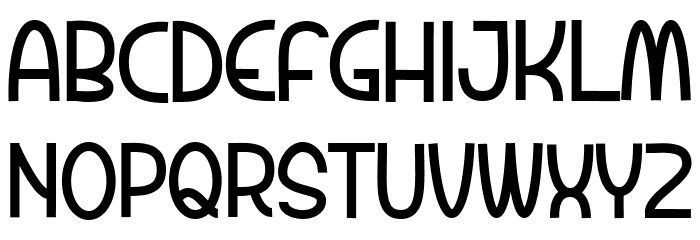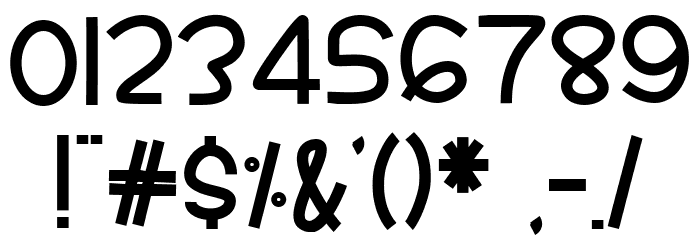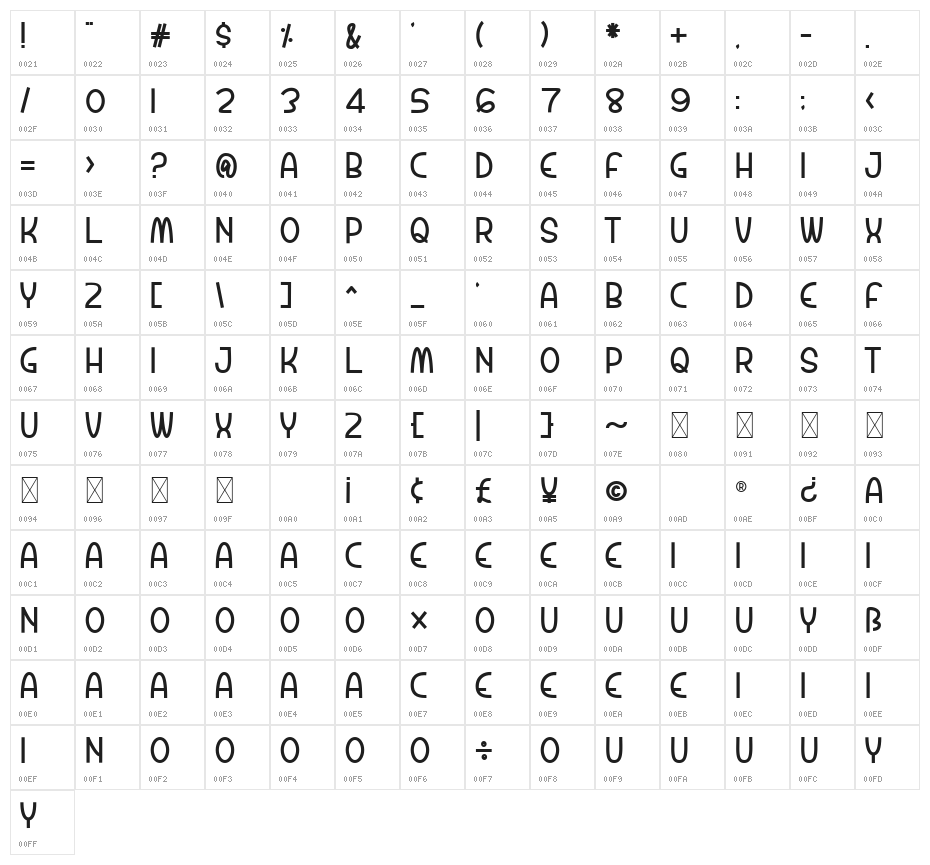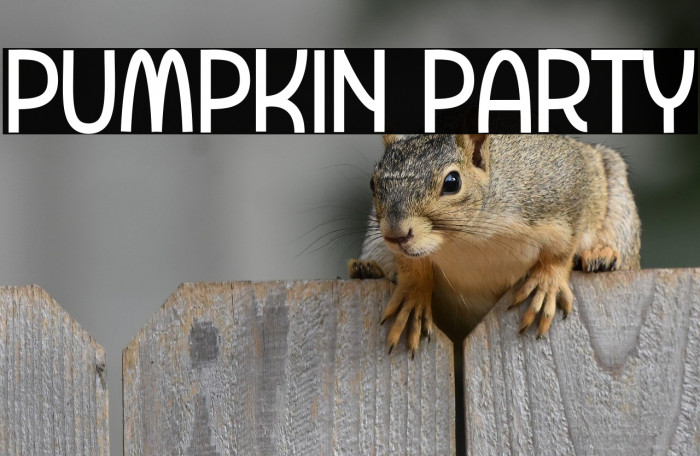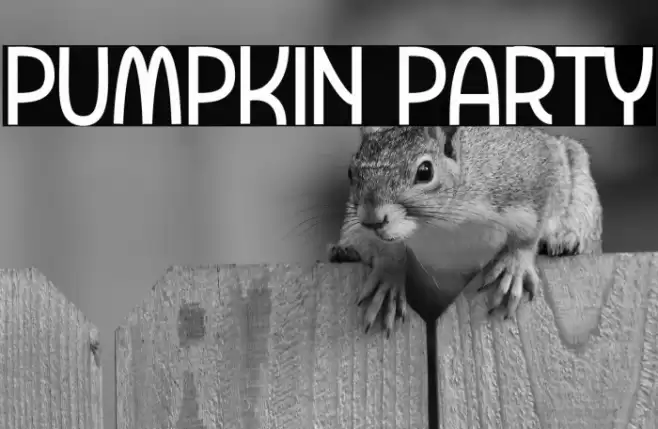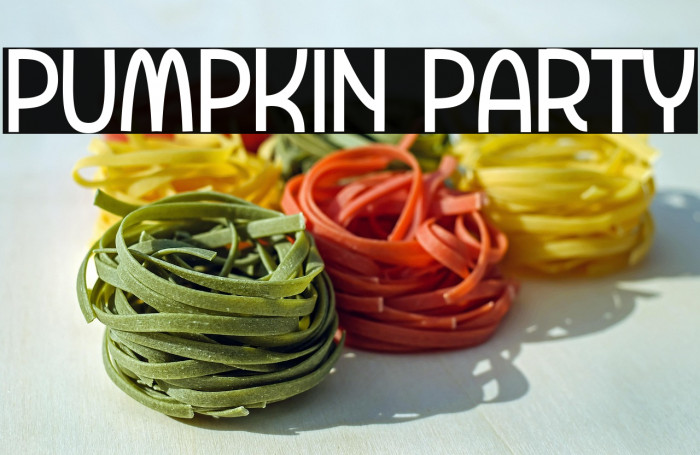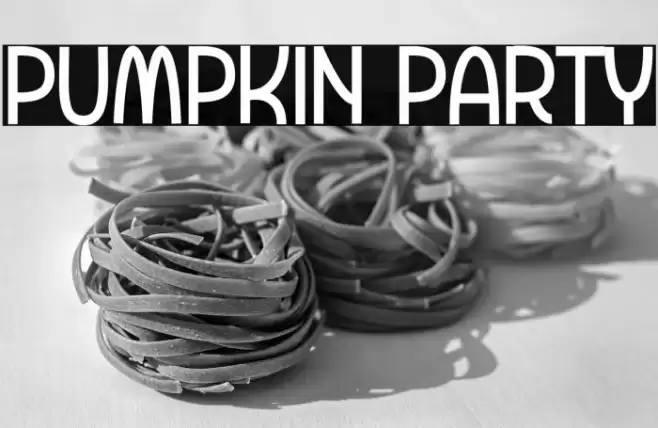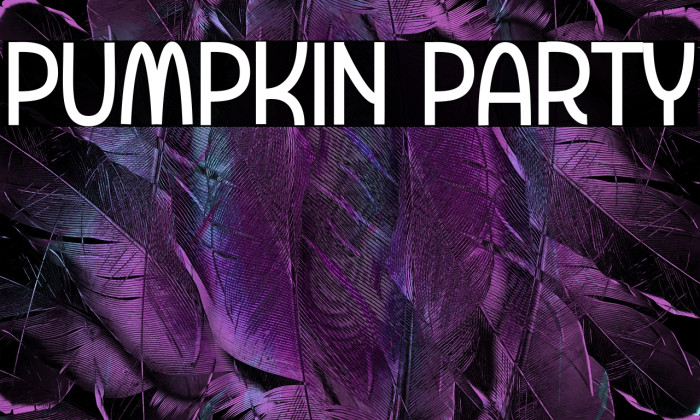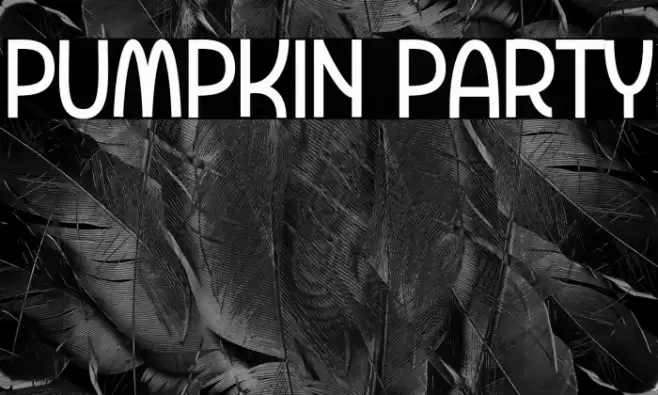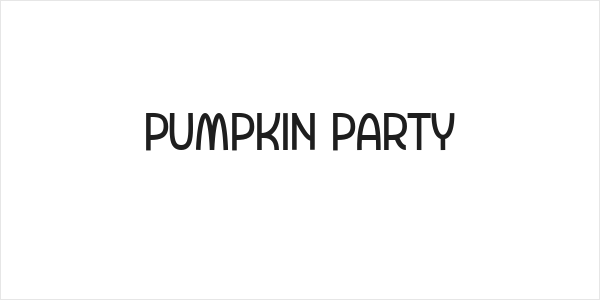
Pumpkin Party Font
This font features a playful and rounded style, characterized by its bold and slightly whimsical appearance. The letters are uniformly thick, with smooth curves and a consistent stroke width that gives it a friendly and approachable feel. The uppercase letters are distinct with a slight retro flair, while the numerals and special characters maintain the same playful aesthetic. The overall design is clean and legible, making it suitable for various creative applications. Its unique style can add a touch of fun and personality to any project.
A playful, rounded font with a bold and whimsical style.
- Font: Pumpkin Party
- Proposed Projects: Ideal for children's books, party invitations, playful branding, and festive posters.
- Overall Style: Playful, Retro